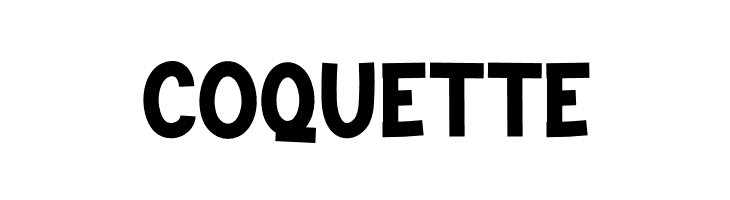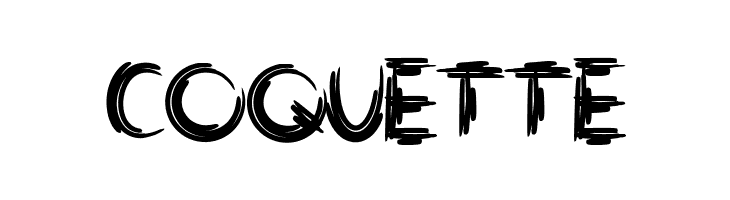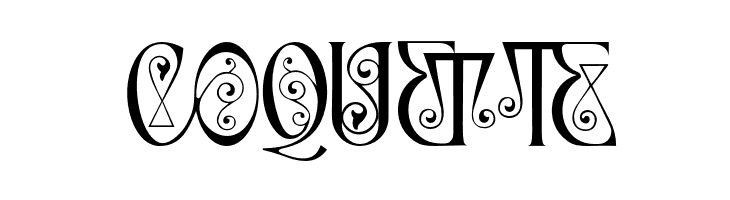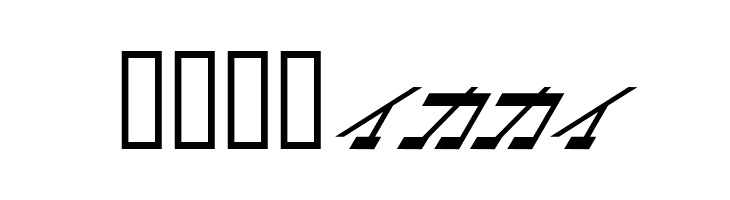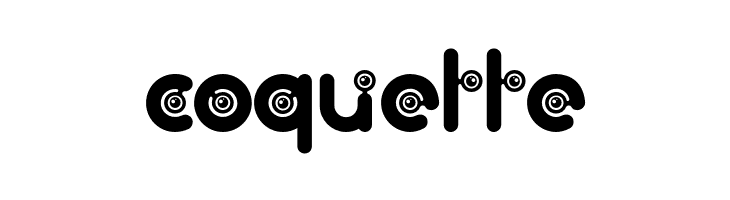
• Arthens Free
A dynamic cursive script font with elegant, flowing strokes.
• ARTHILA
A modern serif font with sharp angles and clean lines.
• ARTHILA Bold
A bold, modern font with angular uppercase letters and consistent boldness throughout.
• ARTHIQUE DEMO
A modern, geometric font with clean lines and balanced spacing.
• ARTHO Personal Use
A playful, bold font with a hand-drawn, whimsical style.
• Arthritis BRK
• ArthritishSpringtime
An elegant calligraphic font with flowing, ornate strokes.
• Arthur Dale Demo
An elegant, flowing script font with smooth, cursive strokes.
• Arthur Taniya
A bold, flowing script font with elegant, cursive strokes.
• Arthus1 Hig6htone
A whimsical and decorative font with intricate loops and flourishes.
• Article Master Demo Regular
An ornate and decorative font with intricate swirls and embellishments.
• Articulada Medium
A bold, mechanical font with a futuristic, industrial design.
• Artifact
A modern, abstract font with thin, intersecting lines forming geometric characters.
• artifice.rs-Regular
A playful, modern font with rounded edges and decorative elements.
• ArtificeSSK
A bold, brush script font with dynamic strokes and a handwritten feel.
• Artificial Jewel
A modern, elegant script font with flowing, cursive characters.
• ArtificialSatellite
• Artifika Medium
A modern serif font with elegant curves and balanced proportions.
• Artisanalerie 1_PersonalUseOnly
A playful, bold font with rounded edges and consistent thickness.
• Artisanalerie 2_PersonalUseOnly
A playful, rounded font with bold, smooth curves and a modern, whimsical style.
• Artisanalerie 3_PersonalUseOnly
A modern, striped decorative font with geometric structure and clear legibility.